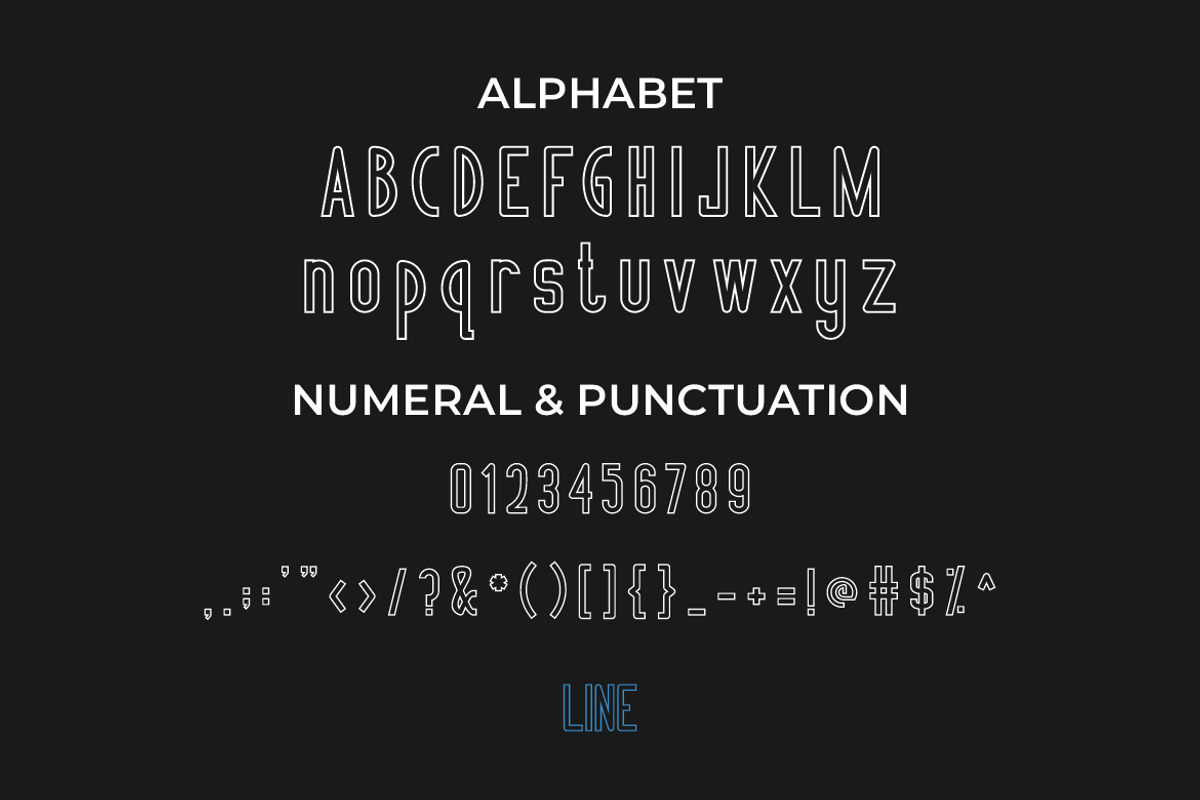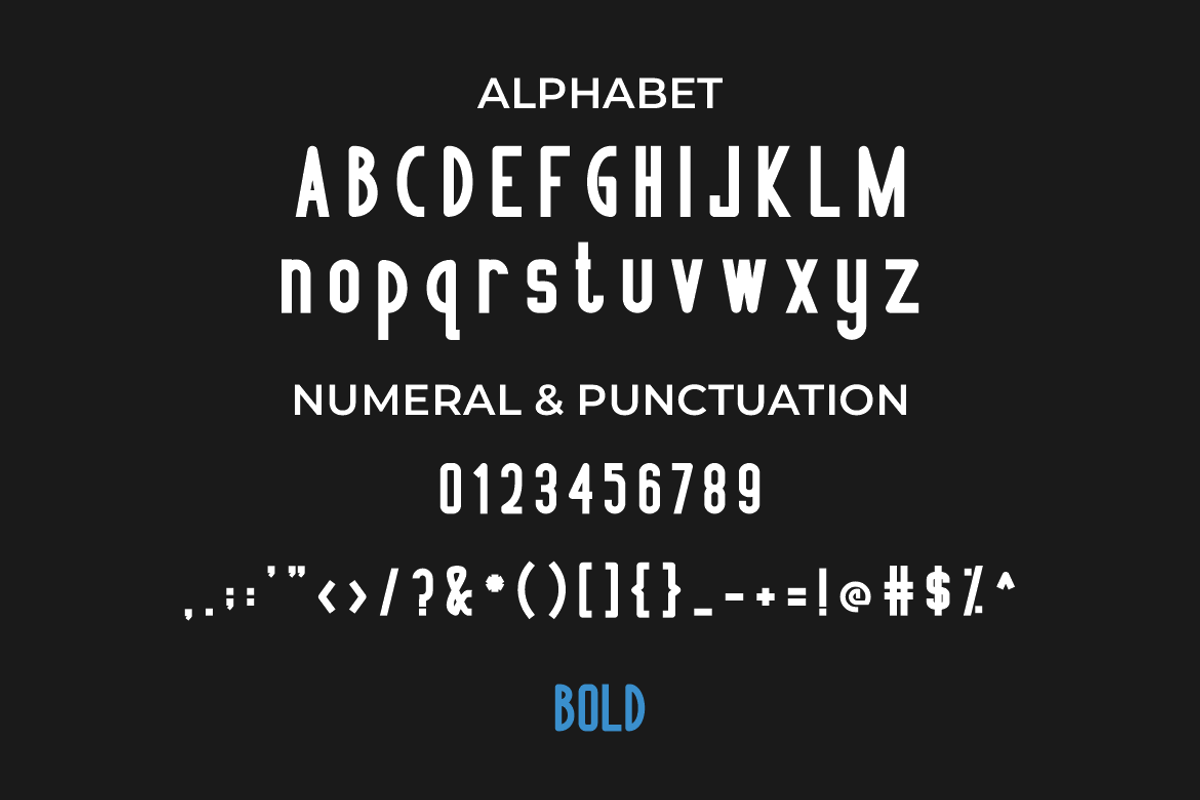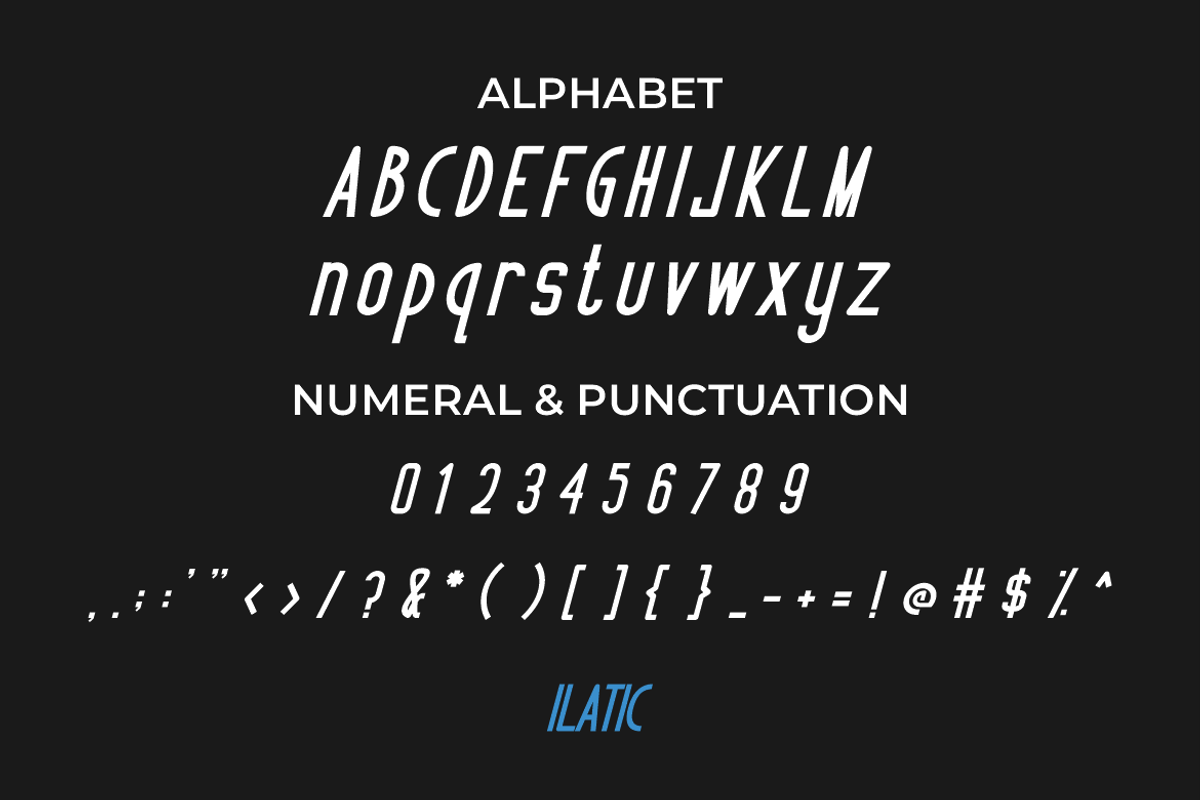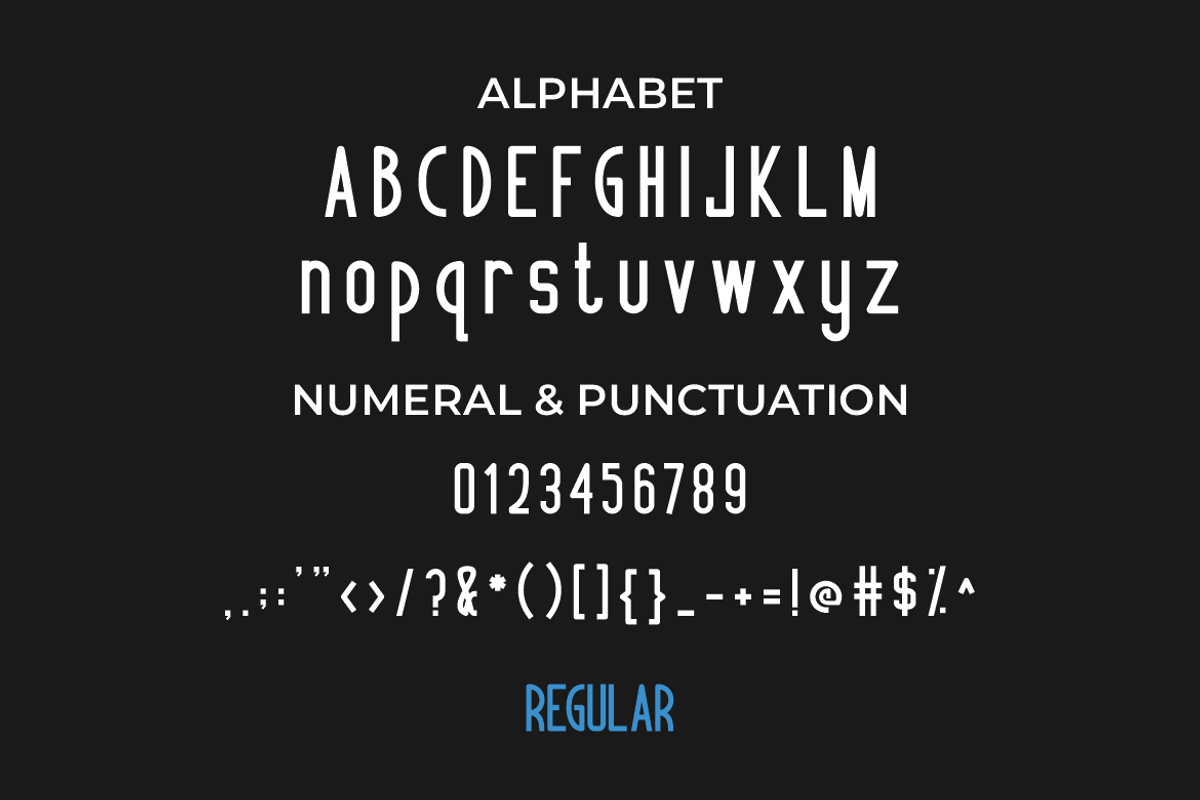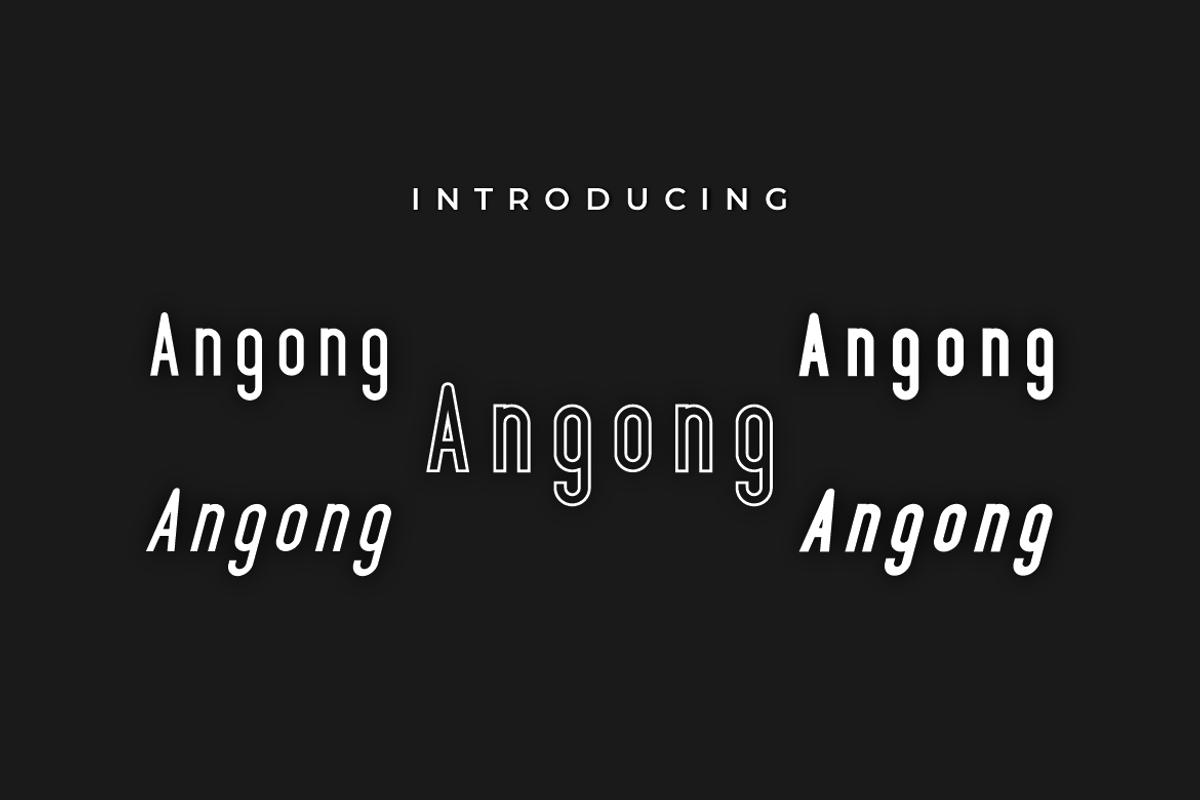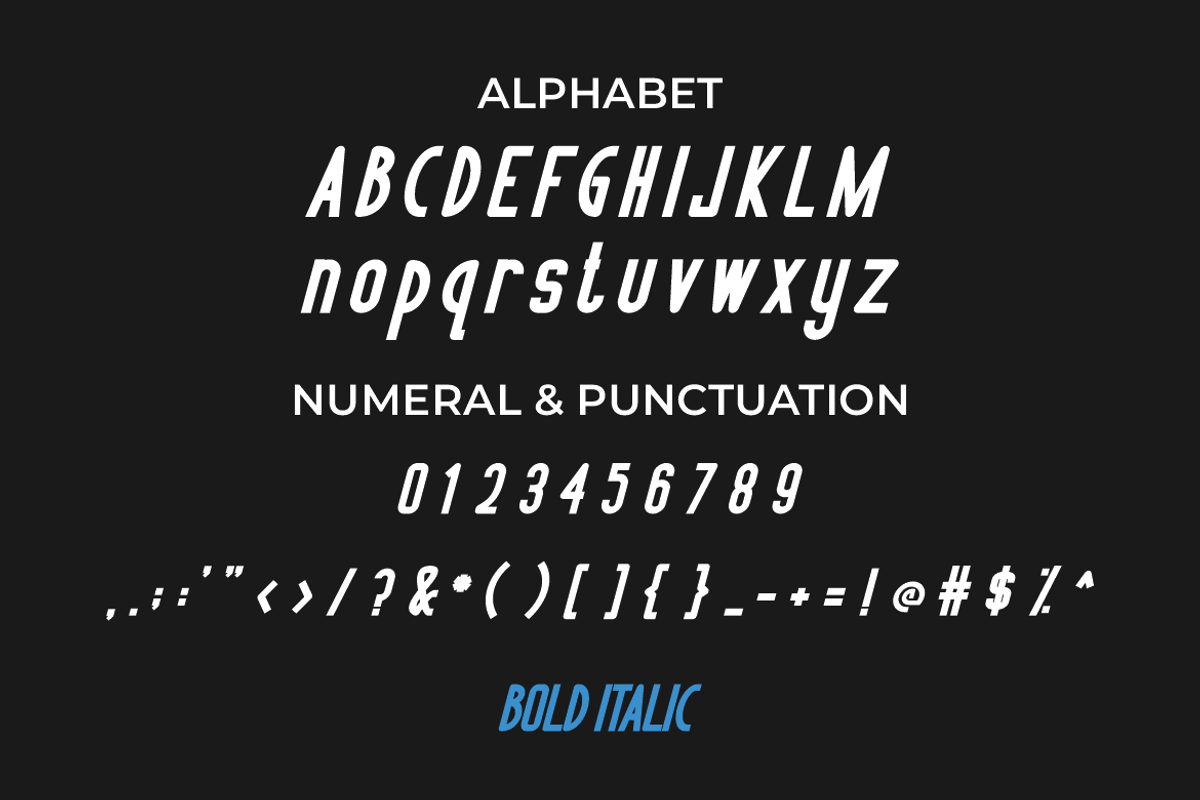
Angong Font 5 Type
Introducing our new product Angong Font - Modern Font
Angong Font - Modern Font is a bold and authentic display font. The font is suitable for any branding project like logo, t-shirt printing, esport, and many more. outstanding in a wide range of contexts.
5 Type Font
- REGULER
- ITALIC
- LINE
- BOLD
- BOLD ITALIC